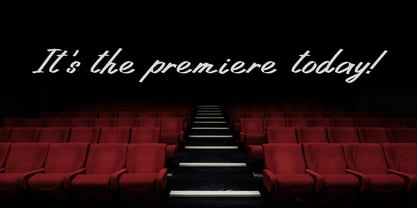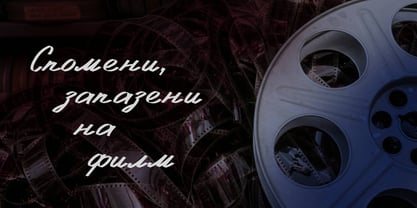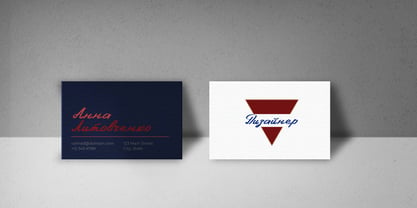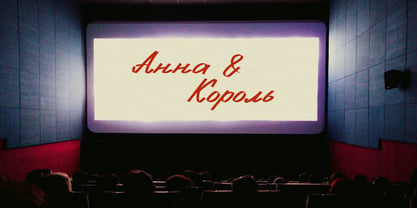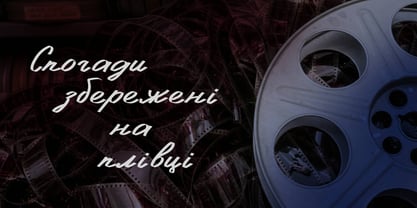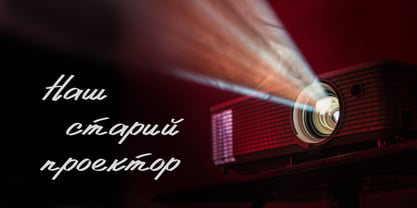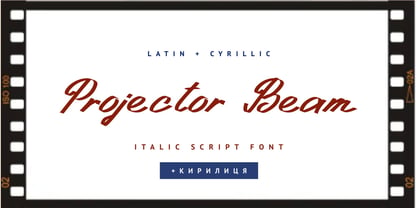
Projector Beam Cyrillic Script
by Ira Dvilyuk
The Projector Beam Cyrillic Script Font Family was designed by Iryna Dviliuk and published by Ira Dvilyuk. Projector Beam Cyrillic Script contains 1 styles. More about this family
Projector Beam Cyrillic Font is an exquisite handwritten script with a dynamic slant, blending the aesthetics of live penmanship with professional digital precision. Crafted with a focus on Cyrillic characters, it preserves the natural rhythm and authentic letter connections of real handwriting. The expressive tilt adds a sense of motion and elegance, giving any design a distinct, personalized touch. Branding & Identity: Logos for craft businesses, bakeries, florists, or the beauty industry. Event Stationery: Wedding invitations, greeting cards, and upscale restaurant menus. Packaging Design: Labels for premium goods, cosmetics, or organic products. Social Media: Eye-catching headlines for Reels and Stories or atmospheric Pinterest quotes. Editorial Design: Book covers and epigraphs requiring an "author’s note" aesthetic.
Projector Beam Cyrillic Script